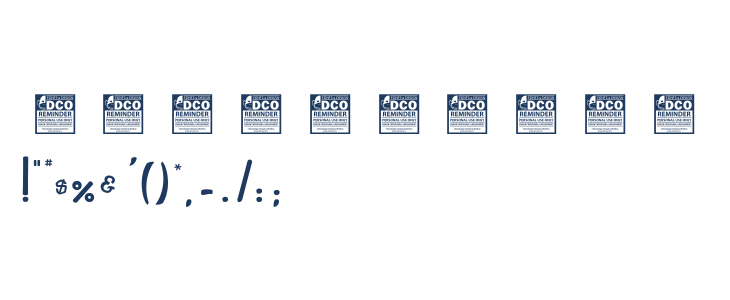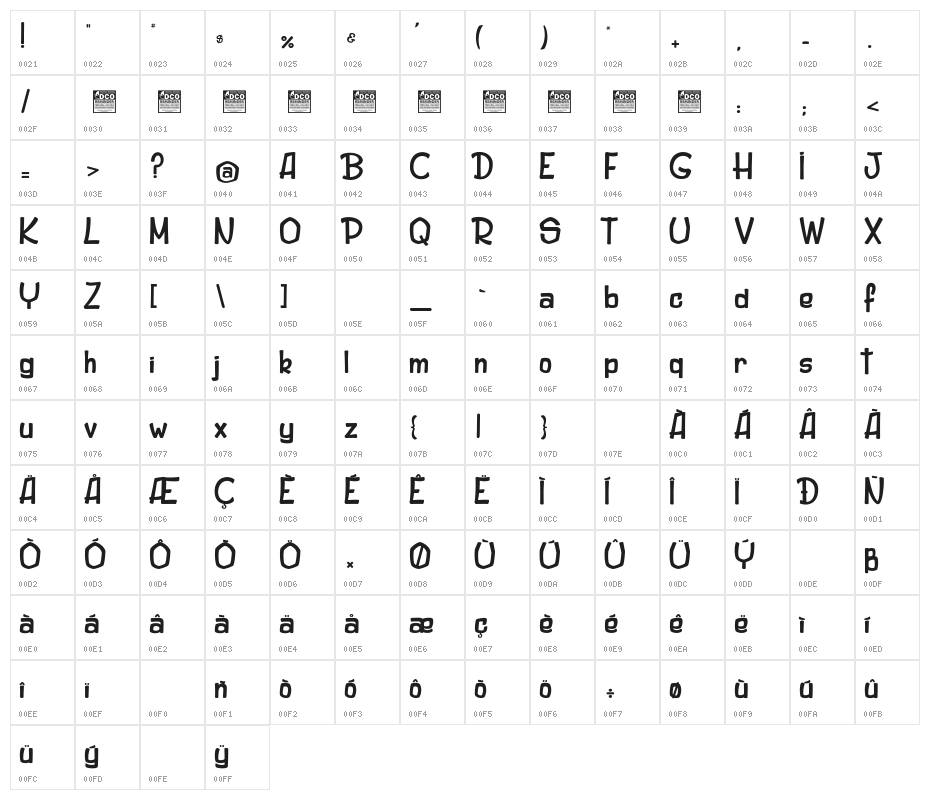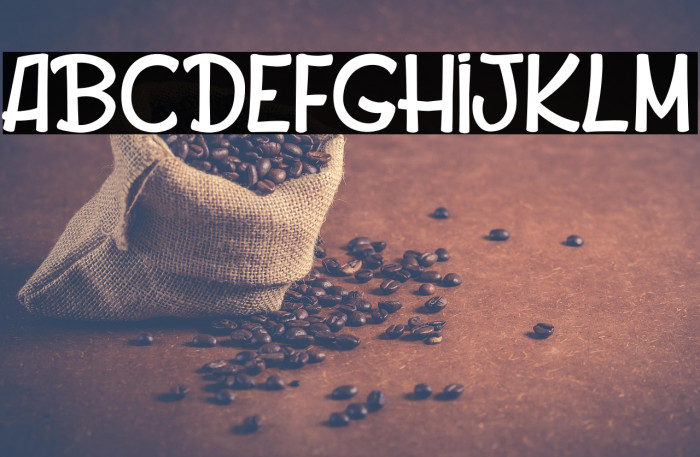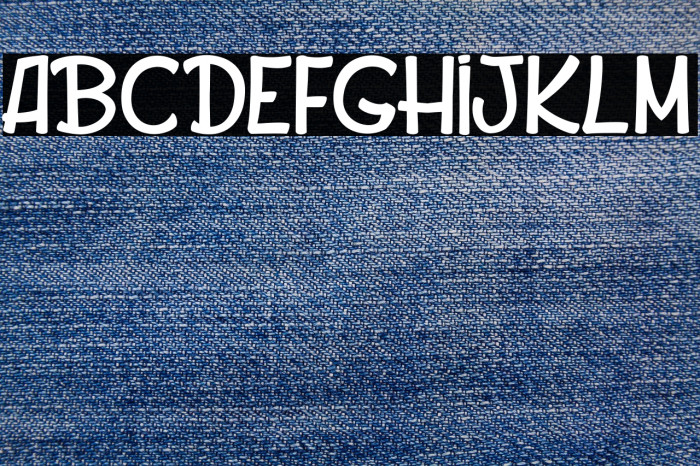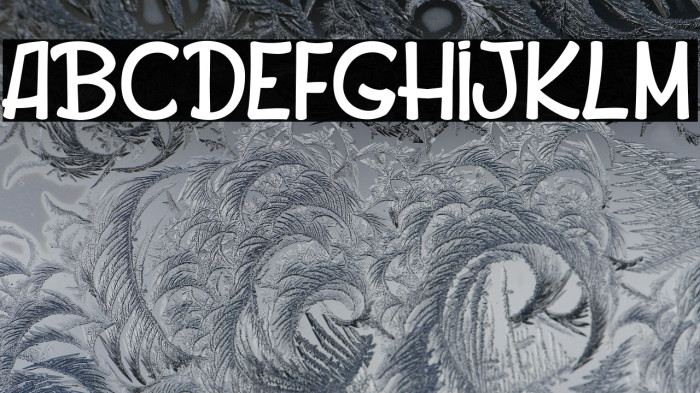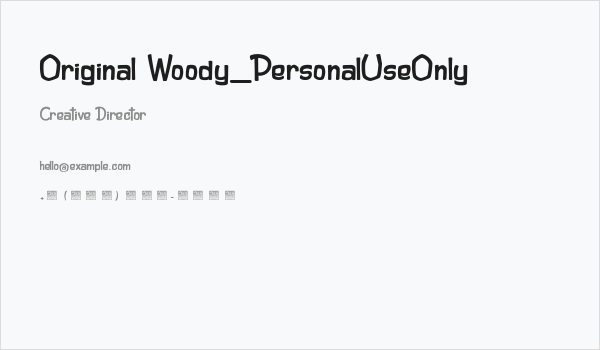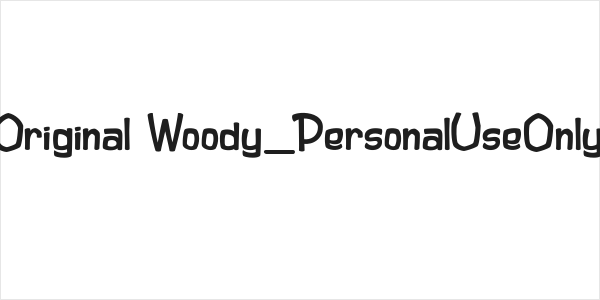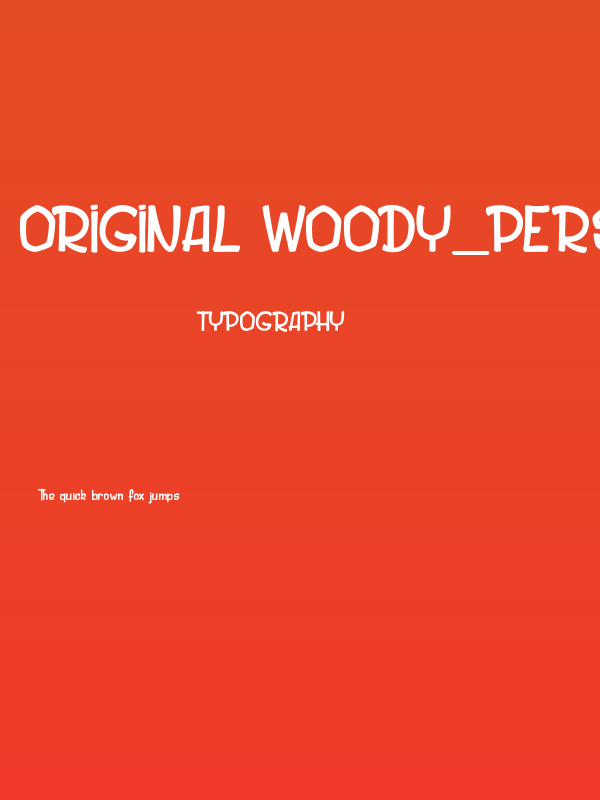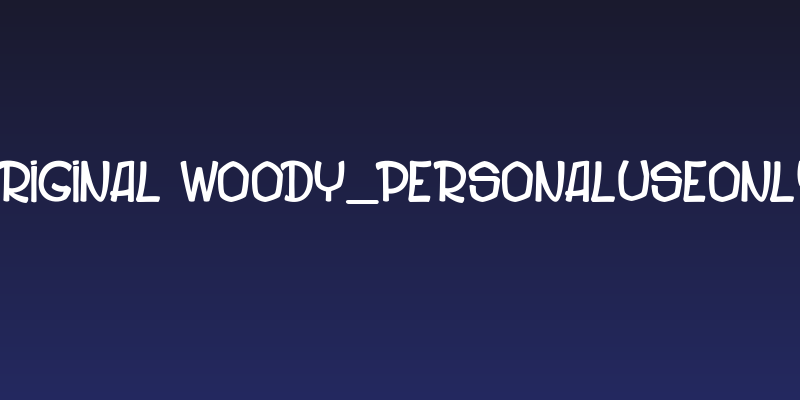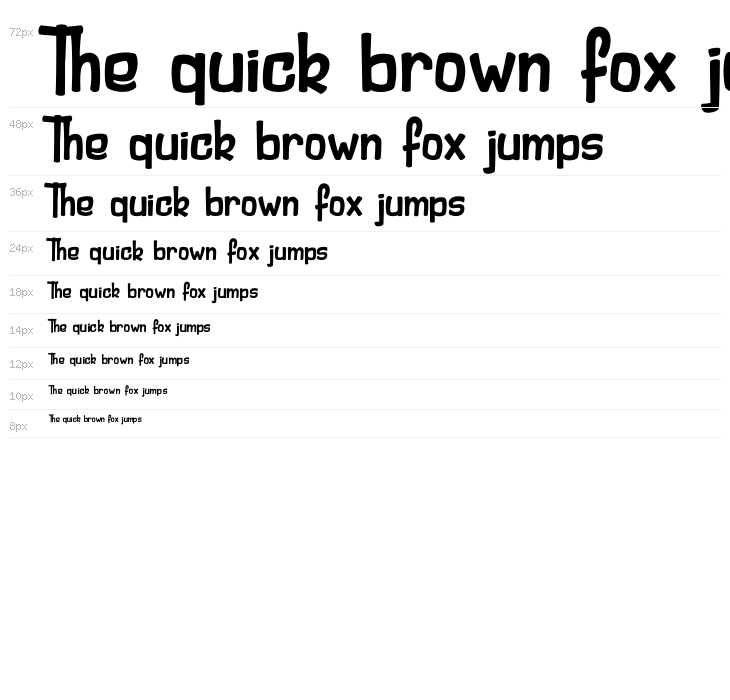
Original Woody_PersonalUseOnly Font
Original Woody_PersonalUseOnly Description
This font features a playful and bold design with a hand-drawn aesthetic. The uppercase letters are slightly irregular, adding a whimsical and informal touch. The lowercase letters maintain a consistent style, with rounded edges and a friendly appearance. The numbers and special characters follow the same playful theme, making the font suitable for creative and casual projects. The overall look is reminiscent of a cartoon or comic style, with a unique charm that stands out.
| Overall Style | Playful, Cartoon |